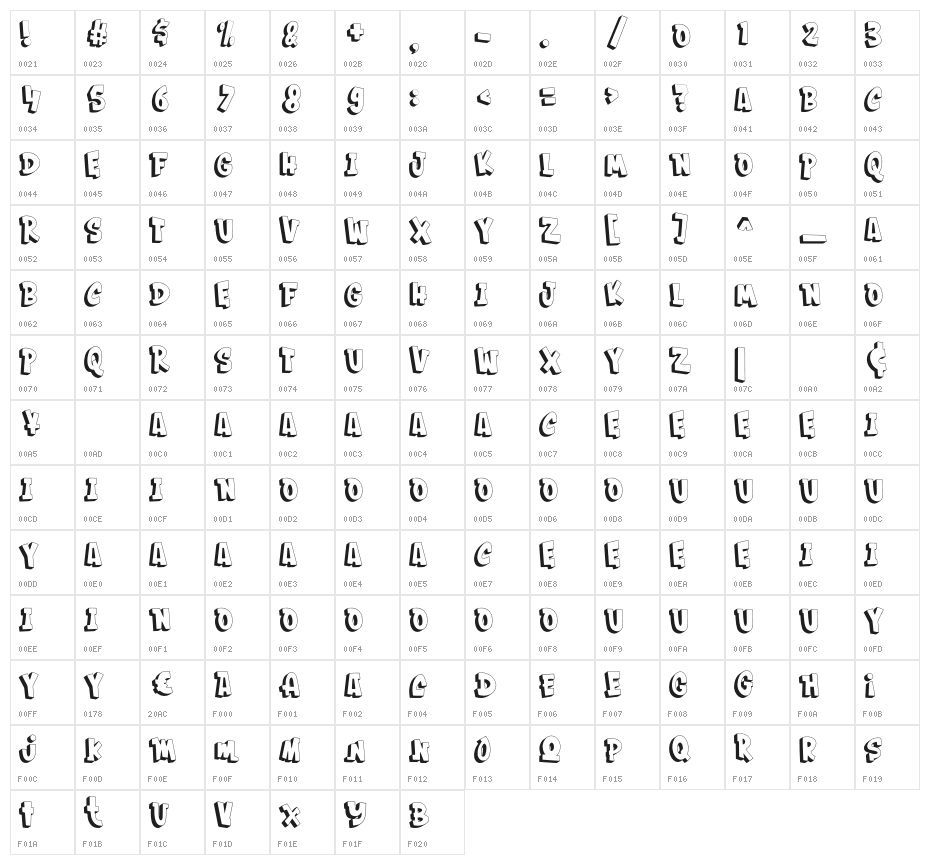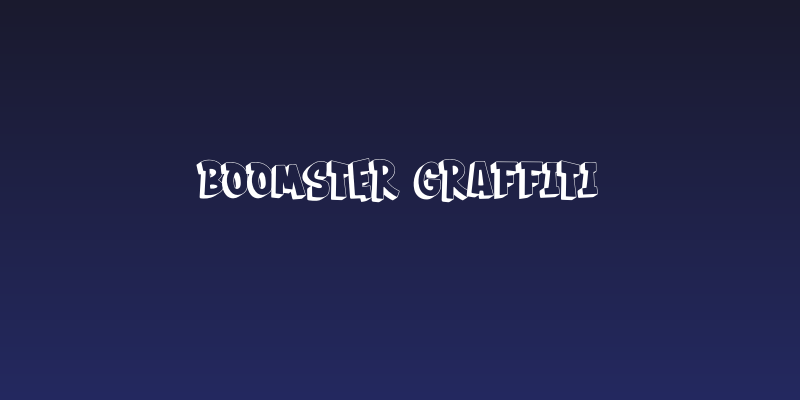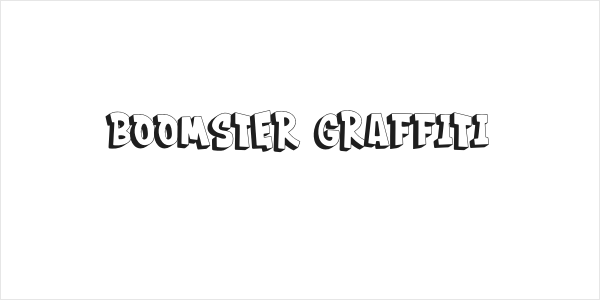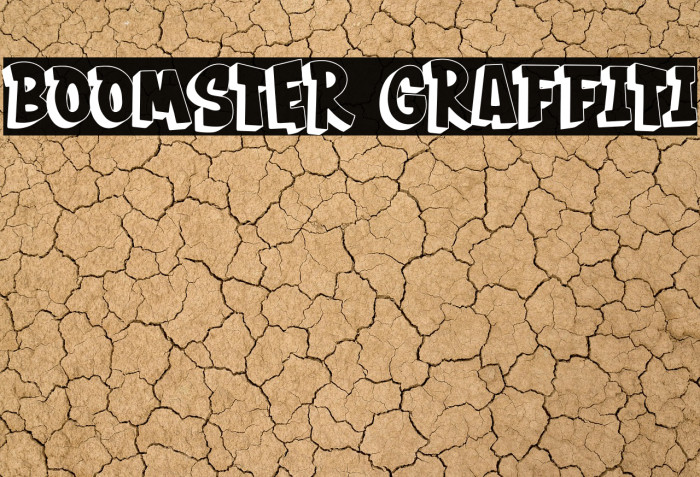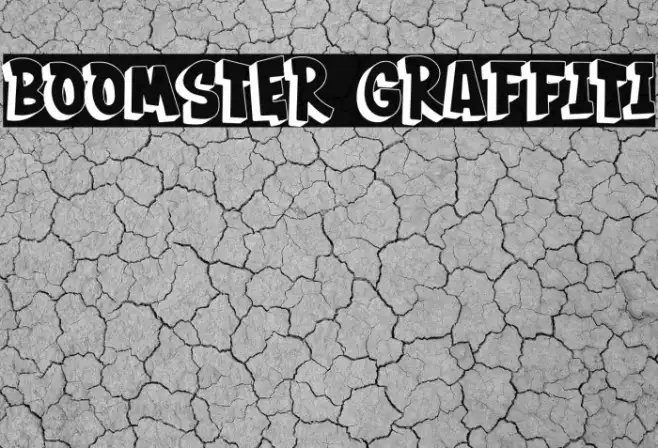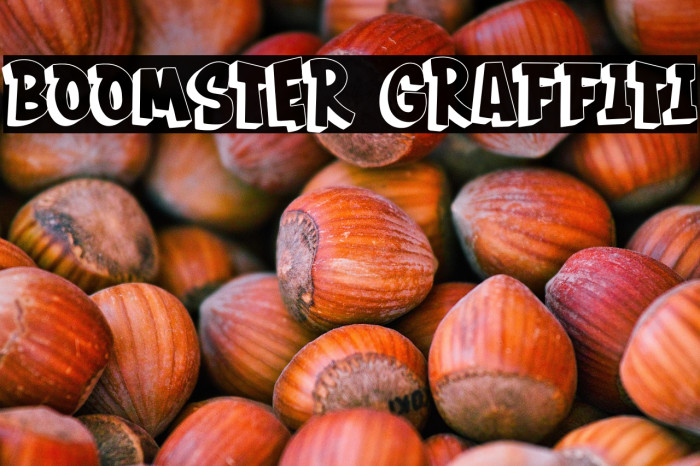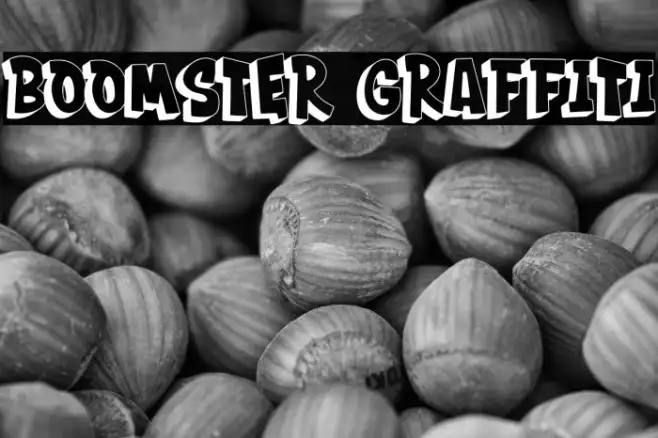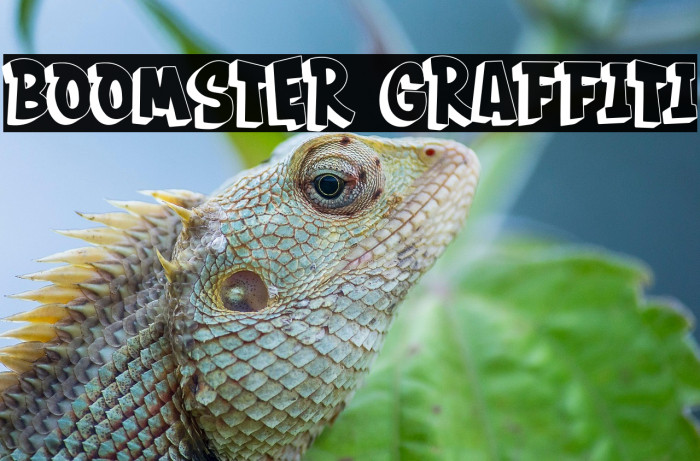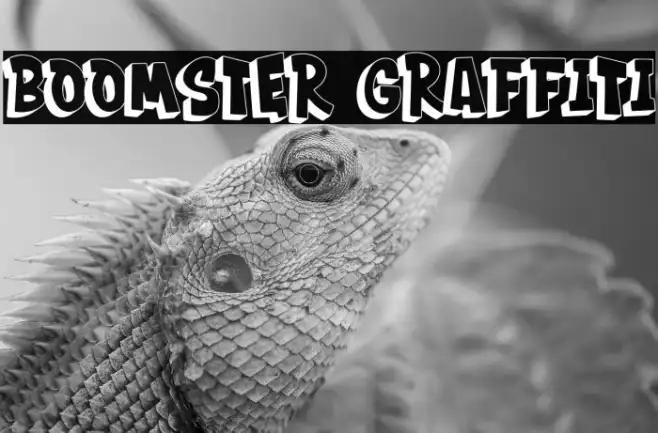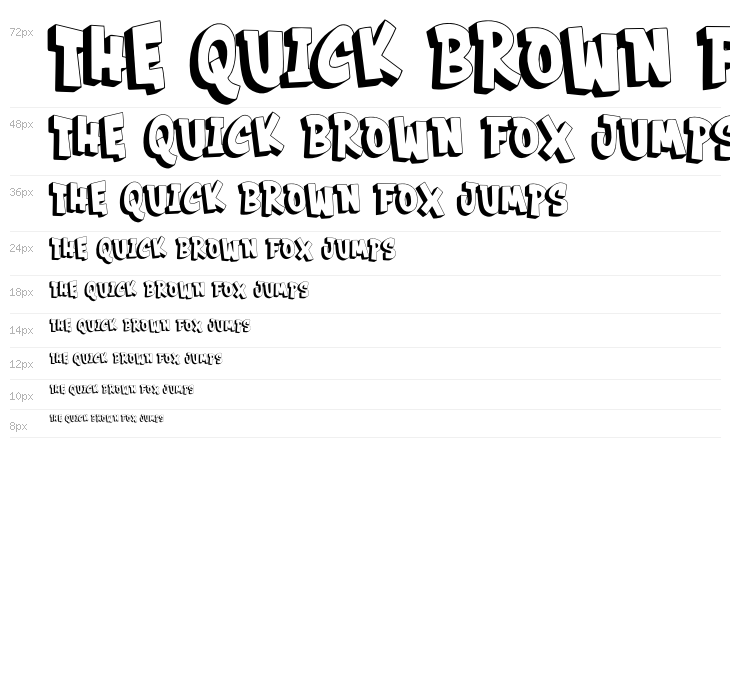
BOOMSTER Graffiti Font
BOOMSTER Graffiti Description
This font exudes a bold and dynamic graffiti style, characterized by its thick, three-dimensional letters that appear to leap off the page. The playful and energetic design is enhanced by the shadowing effect, giving each character a sense of depth and movement. The uppercase and lowercase letters maintain a consistent style, with rounded edges and a slightly irregular form that adds to the hand-drawn, street-art aesthetic. The numerals and special characters follow the same design principles, ensuring a cohesive look across all text elements. This font is perfect for projects that require a youthful, urban vibe.
| Overall Style | Modern, Urban |
| Proposed Projects | Ideal for street art-inspired designs, music album covers, event posters, and urban-themed branding. |